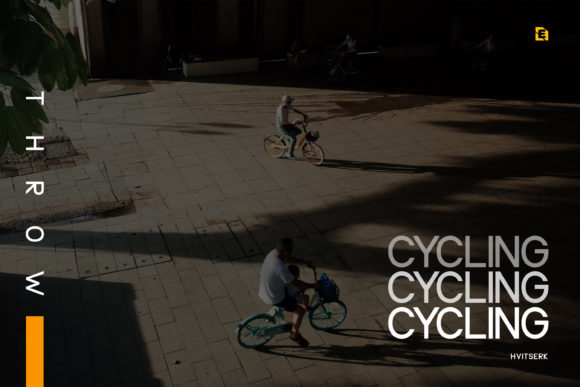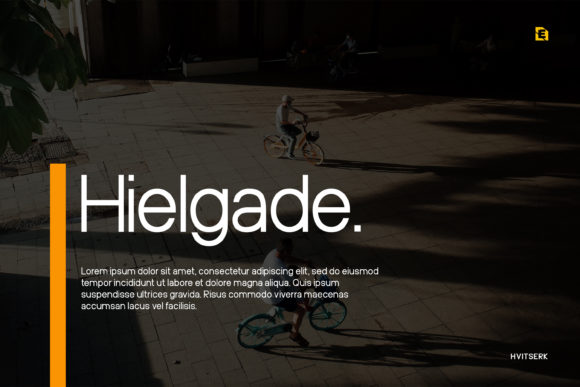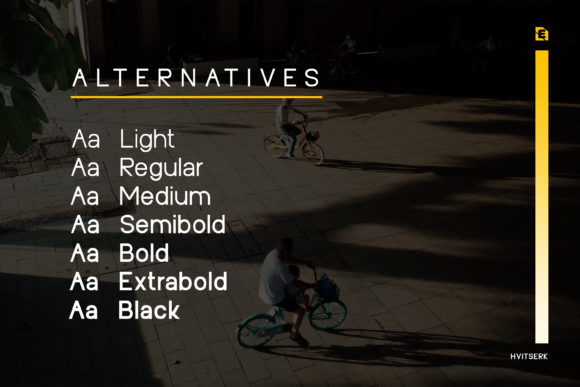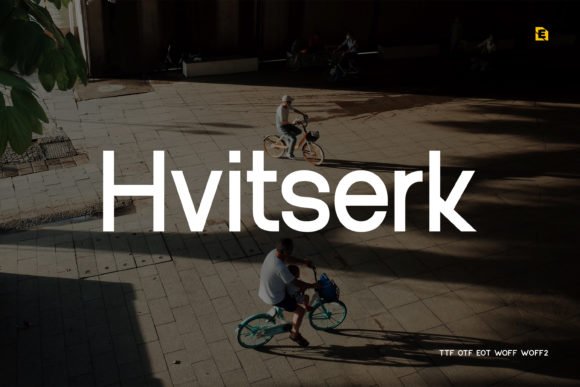
Introduction to Hvitserk Font
Hvitserk is a minimal and neat sans serif font.
Key Features of Hvitserk Font
Why Choose Hvitserk Font?
Hvitserk Font offers exceptional quality and versatility, making it a valuable addition to your design toolkit. Whether you’re creating for personal projects or commercial use, Hvitserk Font delivers professional results.